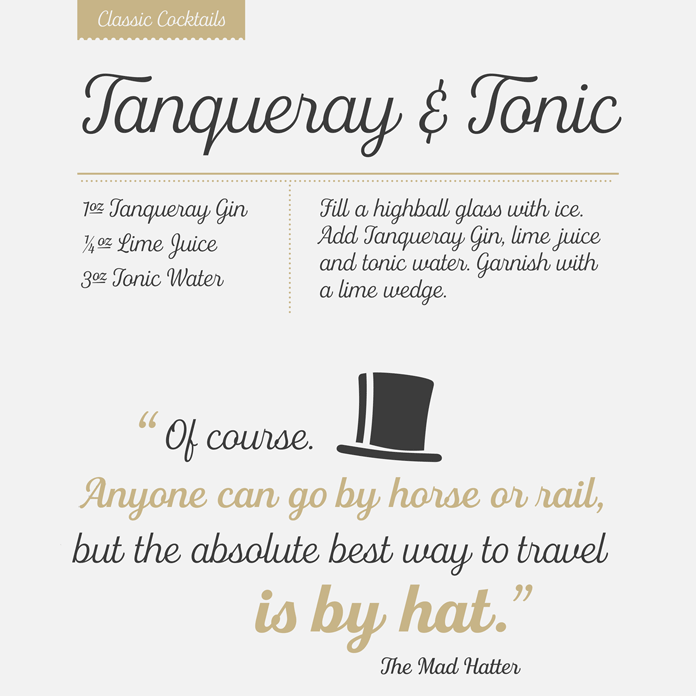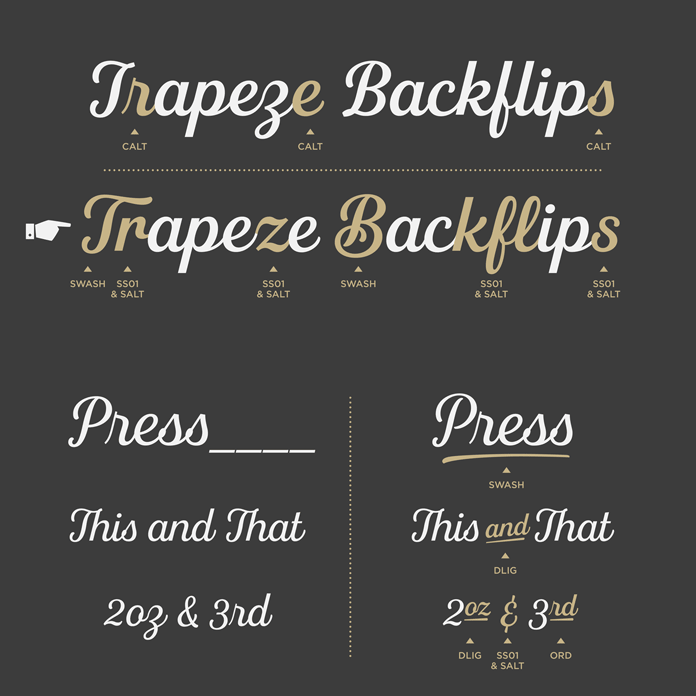
Discover the Fourth font family, a contemporary script with a calligraphic touch.
Here comes another font recommendation! This time I want to show you the new Fourth font family. This lovely roundhand script typeface has been designed in 2016 by Jason Vandenberg. The full family consists of 7 weights ranging from thin to an ultra fat version as well as a set of stylish extras. It was Jason Vandenberg’ approach to create a very legible script that draws inspiration from classic handwritings and calligraphy. Fourth’s style is reminiscent of classic baseball scripts and sign paintings as well as vintage brand design. The collection of extras includes a great variety of ornament that can be used for different applications such as logos or other decorative purpose. Fourth’s refined shapes are both elegant and legible.
Jason Vandenberg has equipped this family with numerous typographic features such as contextual alternates and stylistic alternates, swash capitals and swash lowercase letters, underlines and catchwords. All of these features will help you to create your own custom style. The contextual alternates have been developed to give you the opportunity to create smoother initial and ending forms. The set of stylistic alternates is available for the letters s, r, l, f, k, and z. They give these letters a more substituted look and feel. For additional information on this new script family, do not hesitate and follow the link below.